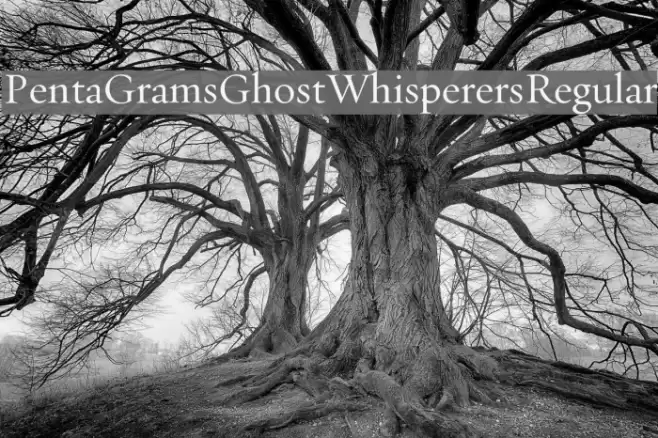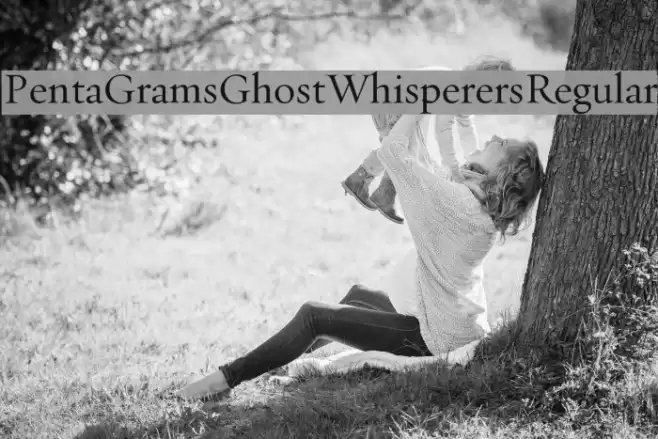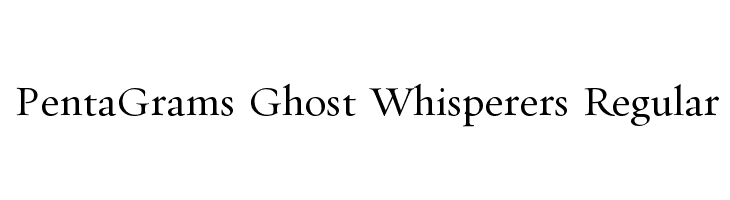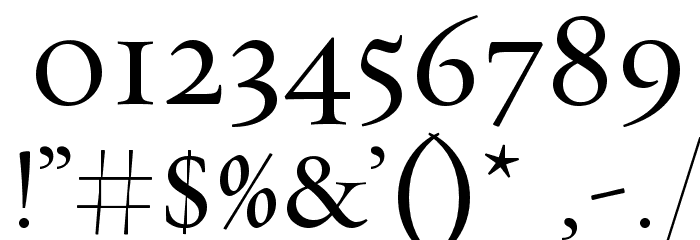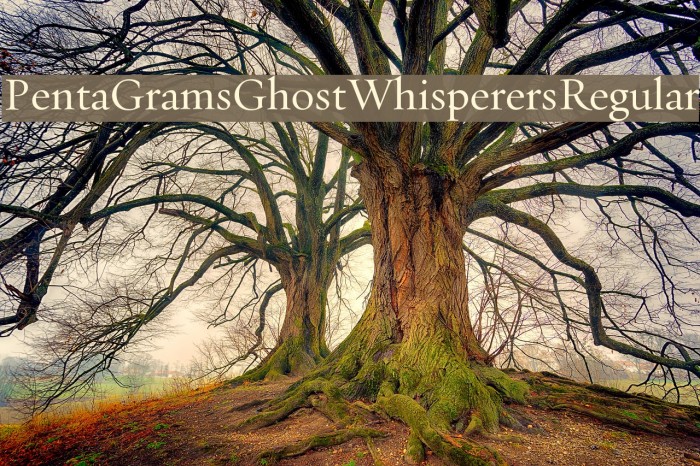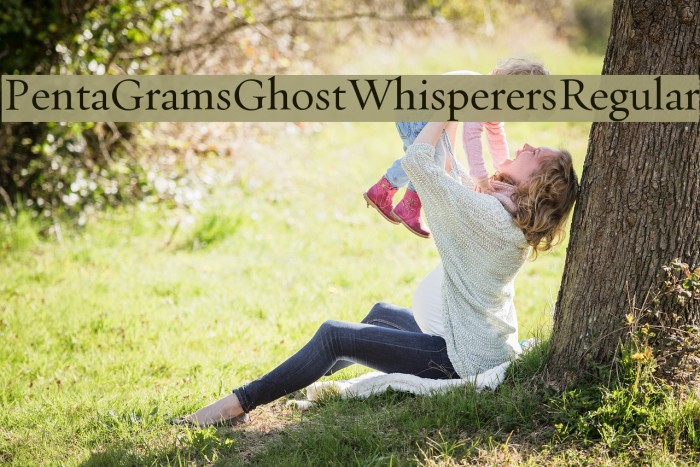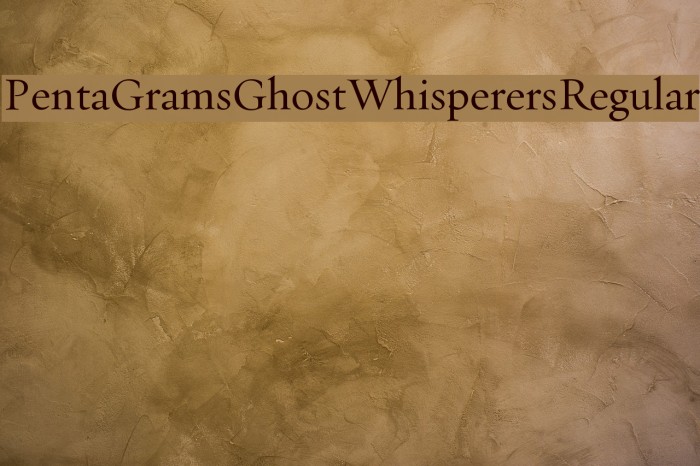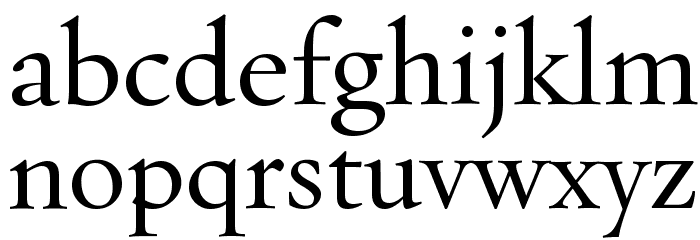
PentaGrams Ghost Whisperers Regular Font
PentaGrams Ghost Whisperers Regular Description
This font features a classic serif style with elegant and slightly elongated letterforms. The uppercase letters are distinguished by their refined serifs and balanced proportions, while the lowercase letters exhibit a graceful flow with subtle curves. The numerals are clear and traditional, maintaining the overall classic aesthetic. Special characters are thoughtfully designed, complementing the font's sophisticated appearance. The font's contrast is medium, offering a pleasant readability without sacrificing style. Its timeless design makes it suitable for a variety of applications.
A classic serif font with elegant, elongated letterforms and medium contrast from Uncategorized fonts.
- Proposed Projects: Ideal for book covers, formal invitations, branding materials, and editorial design.
- Overall Style: Classic